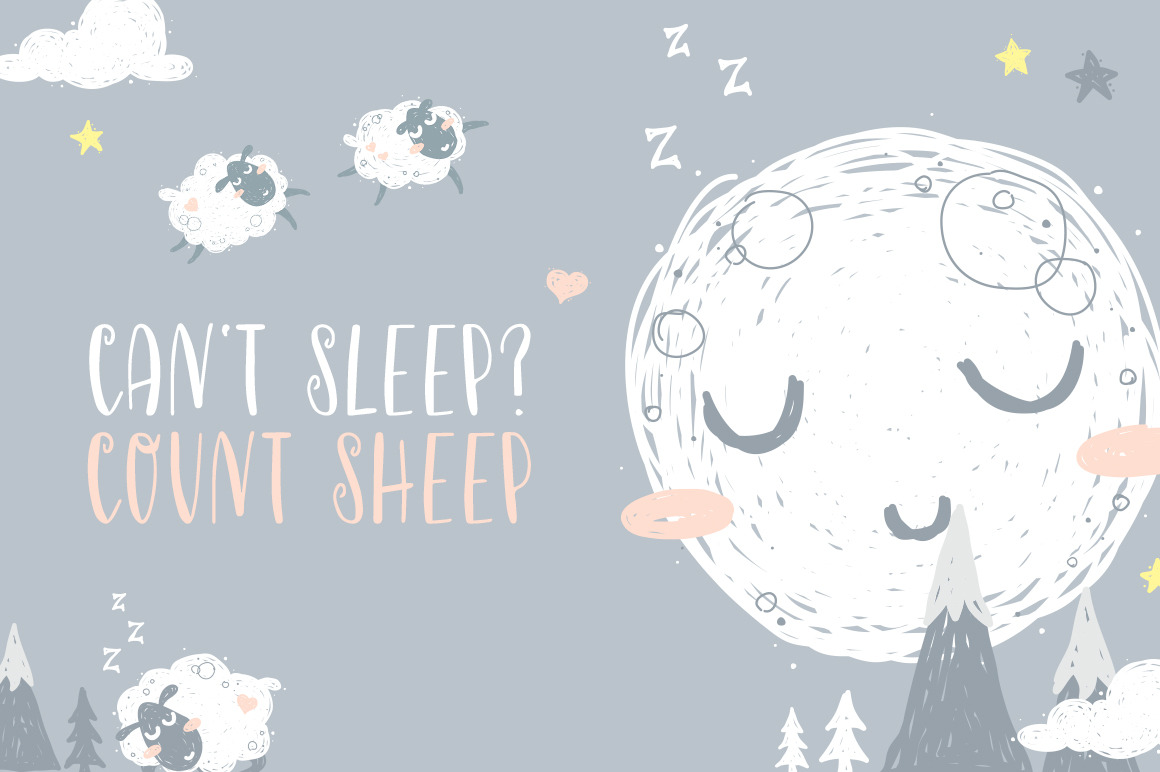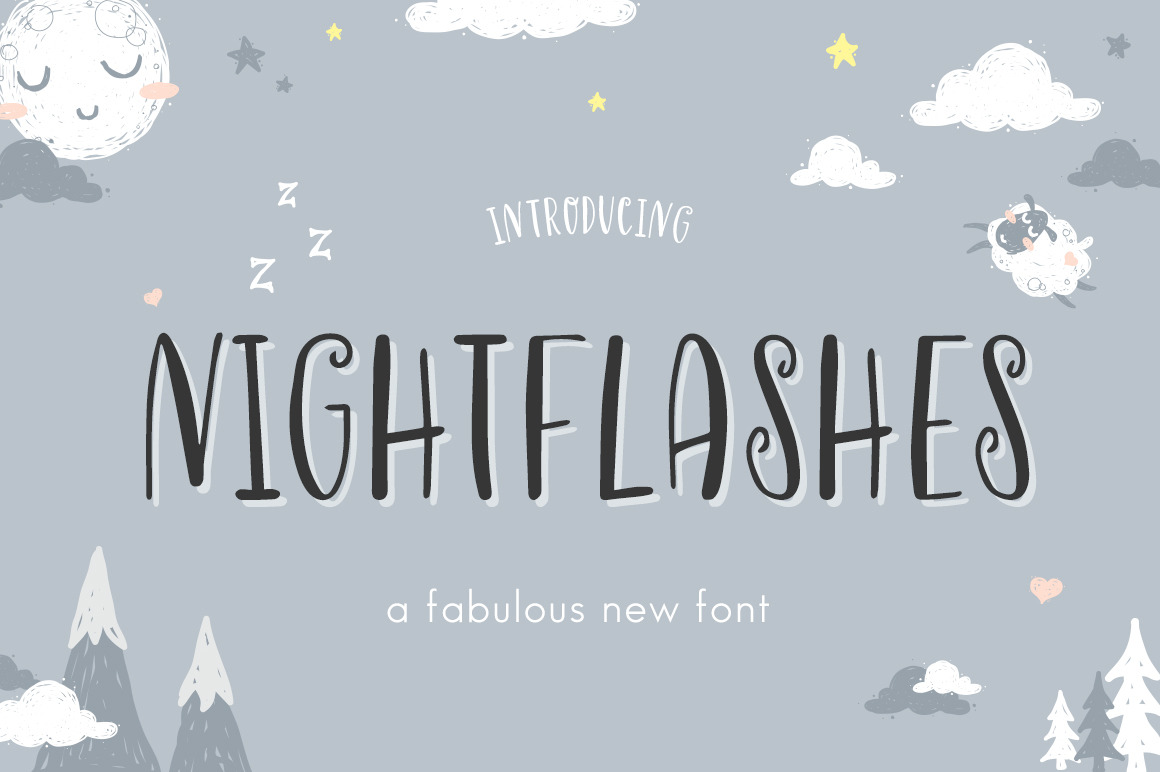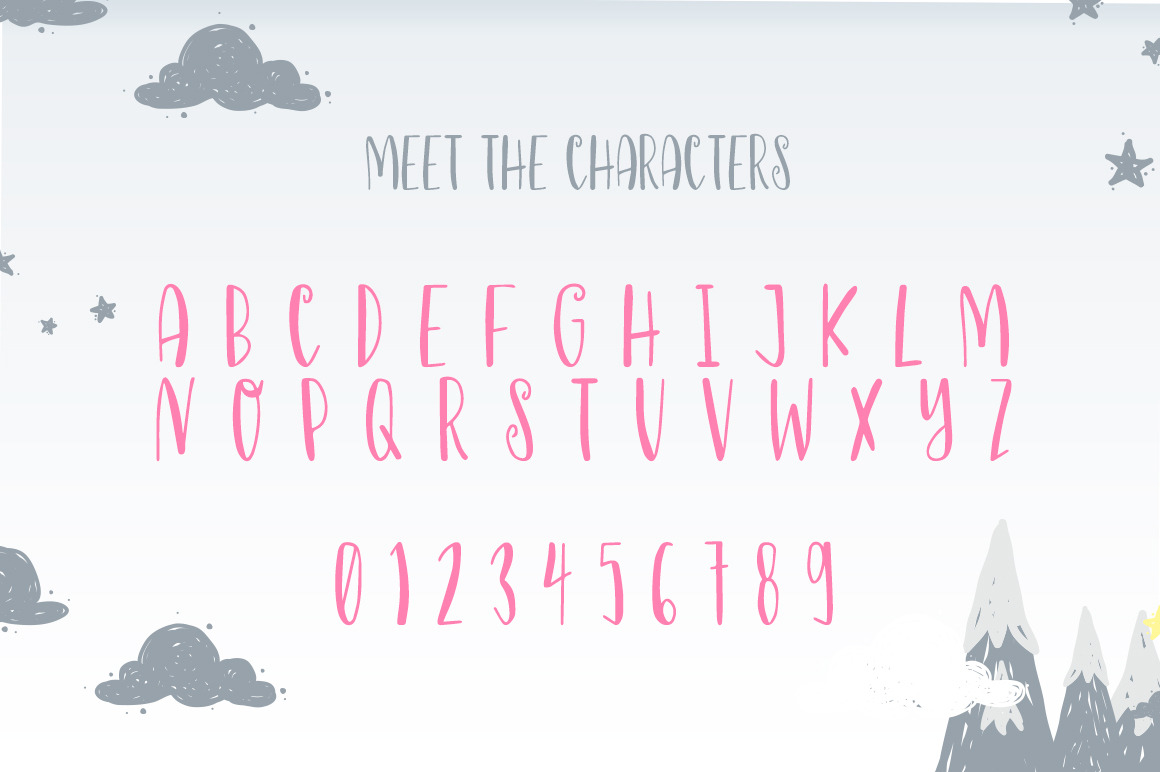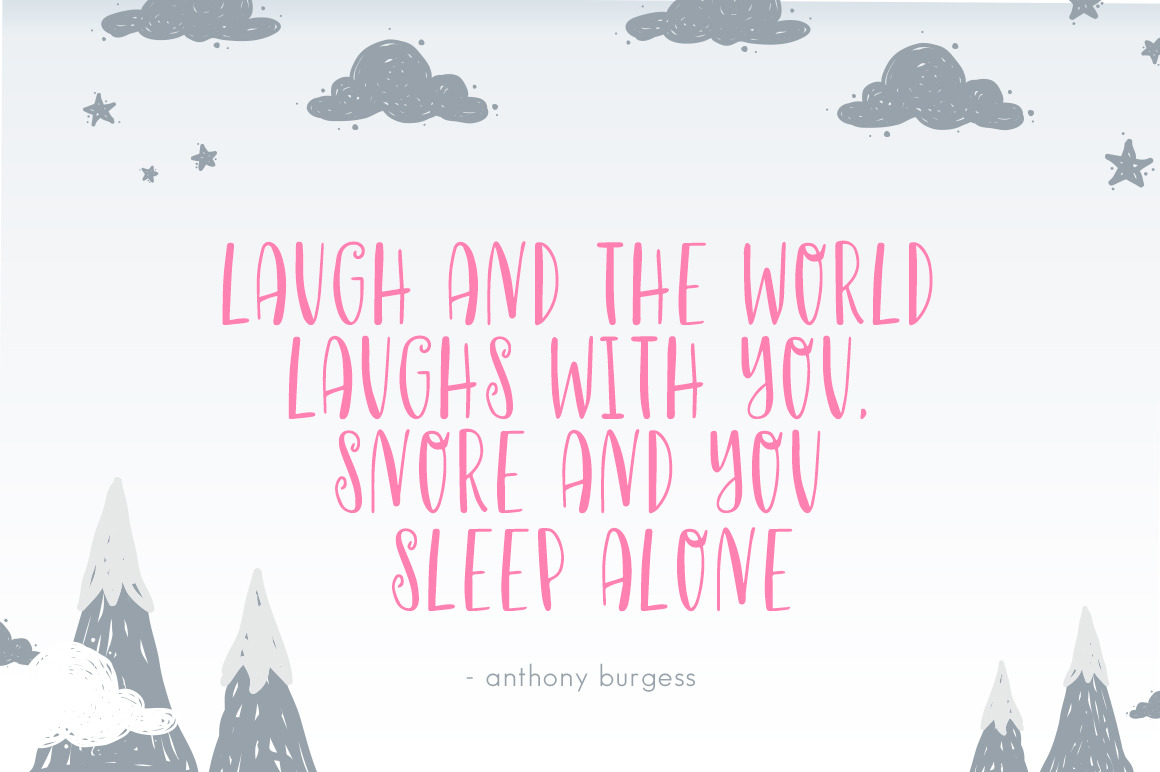
Follow us on YouTube and receive the Simply Lovely font for FREE!! - https://www.youtube.com/@dezgner - - PURCHASE OUR ENTIRE STORE OF 150+ FONTS FOR ONLY $29 - https://crmrkt.com/pQ91eA - Nightflashes is a dreamy new font from Salt and Pepper Designs. Whimsical and carefree, it can add a touch of child like innocence to your work. Happy and bouncy yet legible - that's Nightflahes! Whats Included: - Nightflashes Font (OTF & TTF Format) - Web Fonts (EOT, SVG, WOFF & WOFF2 Formats) - Extended Licensing - Instant Download - Free Updates If you have any queries, questions or issues please don't hesitate to contact us direct. | Nightflashes Font | Salt & Pepper Designs